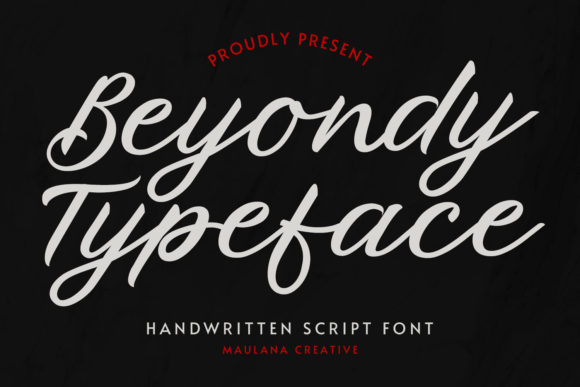
The Designer’s Delight: Getting to Know Beyondy Font
I’ll never forget the time I was working on a branding project for a trendy boutique, and I just couldn’t find the right font to capture the essence of the brand. The client wanted something that exuded confidence, strength, and a touch of nostalgia. That’s when I stumbled upon Beyondy Font, and it was love at first sight! 💕
Beyondy is a beautiful, bold, and cursive handwritten font that reads as strong, confident, and dynamic. It’s perfect for adding tons of nostalgic character to your designs. In this article, I’ll share my honest review of Beyondy Font, provide a practical guide on how to use it, and explore similar fonts that you might love.
My Honest Review of Beyondy Font
• 💥 Unique and eye-catching design: Beyondy Font stands out from the crowd with its bold and cursive script.
• ✅ Highly legible: Despite its bold nature, Beyondy Font is surprisingly easy to read, even at smaller font sizes.
• 🌈 Versatile: This font can be used for a wide range of design projects, from branding and advertising to packaging and signage.
• 🔥 Evokes nostalgia: Beyondy Font has a retro feel that can add a touch of warmth and personality to your designs.
• ⚠️ Limited use in body text: While Beyondy Font is great for headings and titles, it may not be the best choice for longer body text due to its bold nature.
• 🤔 Some letters may require adjustment: Depending on the word or phrase, some letters may need to be adjusted to ensure proper spacing and readability.
The Designer Inspiration Behind Beyondy Font
Beyondy Font was designed by a talented typographer who drew inspiration from classic script fonts and modern calligraphy. The goal was to create a font that exudes confidence and strength while still being elegant and refined.
Q: What type of projects is Beyondy Font best suited for?
A: Beyondy Font is perfect for branding, advertising, packaging, and signage projects that require a bold and confident look.
Q: Can I use Beyondy Font for body text?
A: While Beyondy Font is legible, it’s best used for headings and titles. For longer body text, you may want to choose a more traditional font.
Q: Is Beyondy Font available in different weights or styles?
A: Yes, Beyondy Font comes in various weights and styles, including regular, bold, and italic.